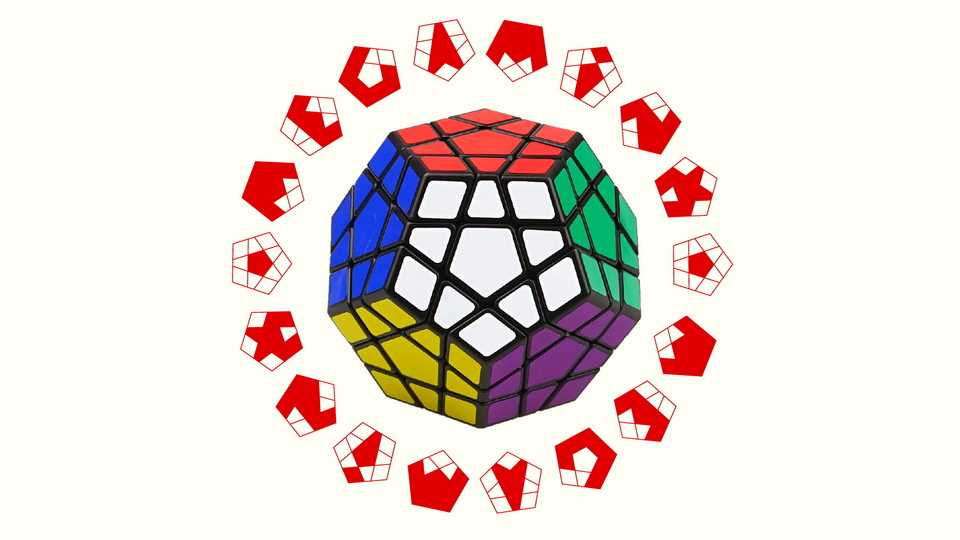
Download Megaminx font, a monospace typeface based on the grid of a Megaminx face. A Megaminx is a kind of Rubik’s Cube, except that it is not a cube but a dodecahedron, a solid with twelve pentagonal faces.